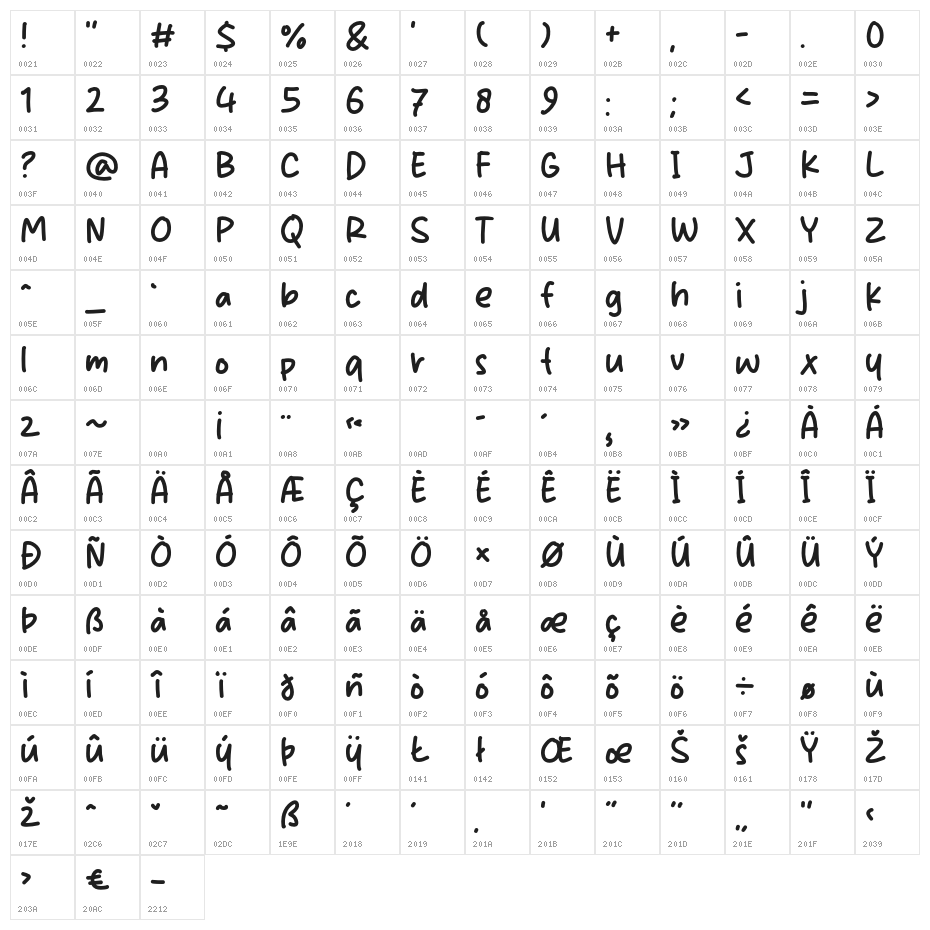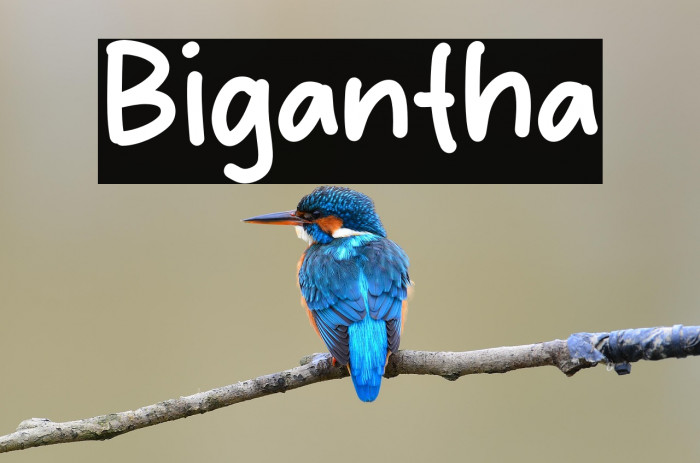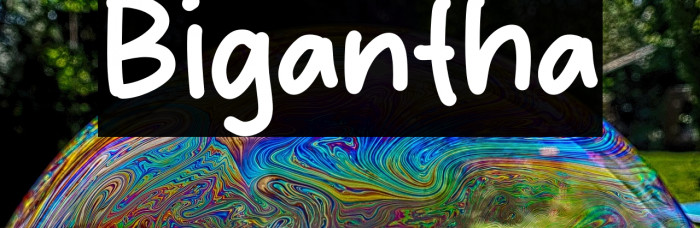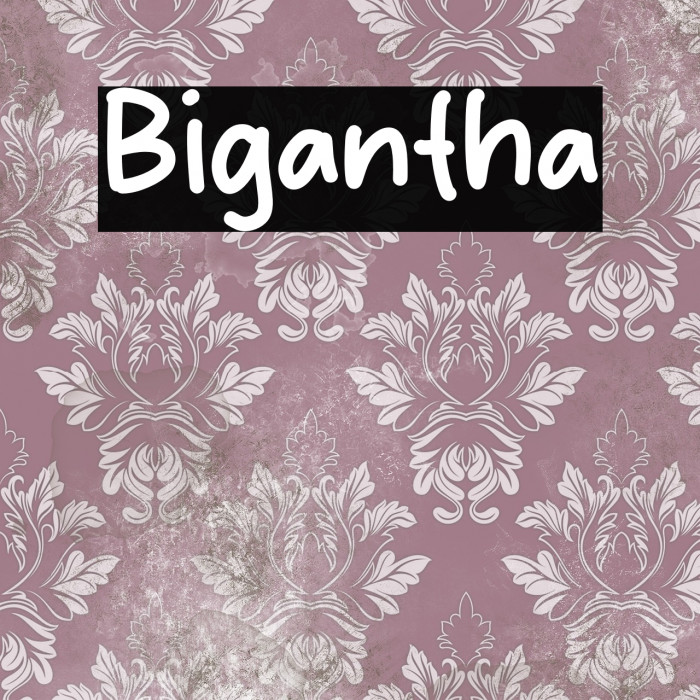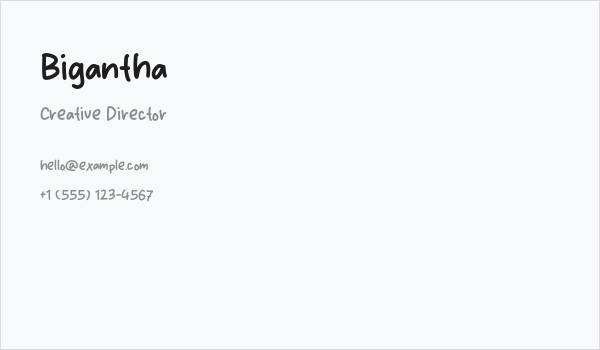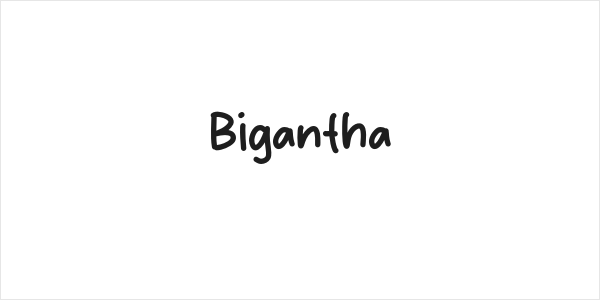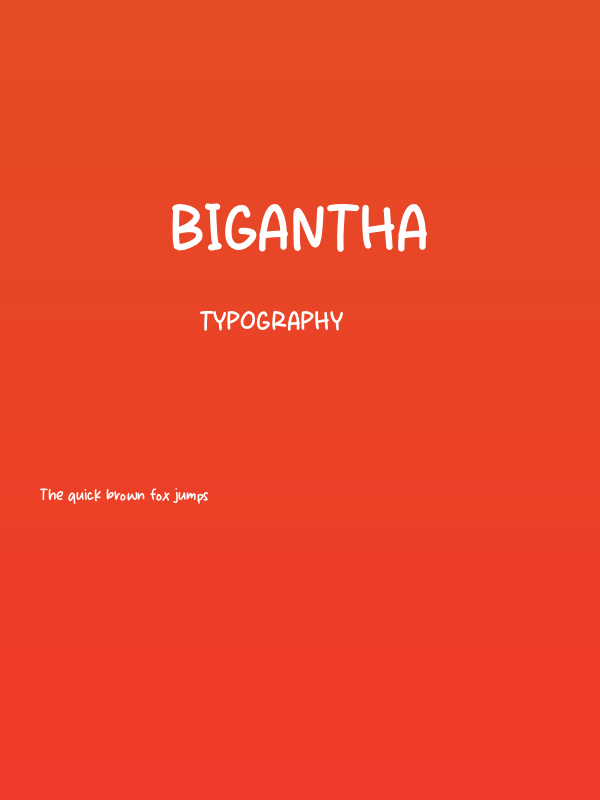
Bigantha Font
Bigantha Description
This font exudes a playful and casual vibe with its handwritten style. The characters are rounded and slightly irregular, giving it a friendly and approachable appearance. The strokes are consistent in thickness, contributing to a cohesive look across all characters. The font maintains a balance between readability and personality, making it suitable for informal and creative projects. Its handwritten nature adds a personal touch, making it ideal for designs that require a human element. The spacing between characters is normal, ensuring clarity and legibility.
| Proposed Projects | Ideal for greeting cards, children's books, casual branding, and social media graphics. |